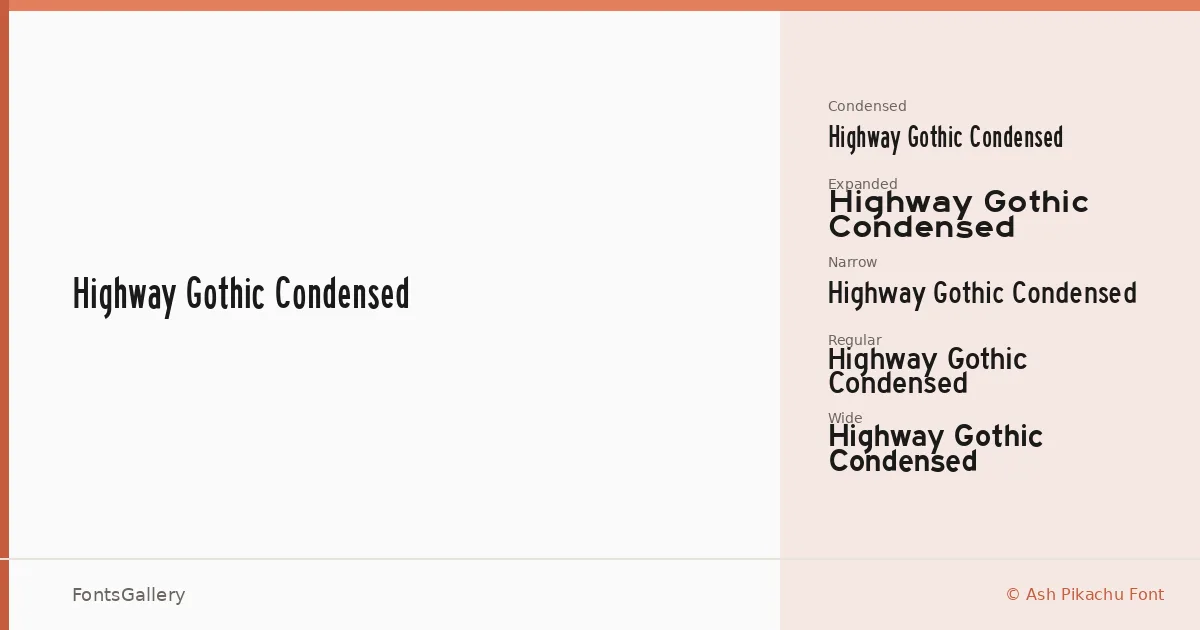
About Highway Gothic Condensed Font
There is something immediately recognizable about the letterforms here — the squared shoulders, the even strokes, the no-nonsense weight that reads at a glance from fifty feet away. This is the geometry of American road signage translated into a type family, designed by Ash Pikachu Font and carrying a copyright from 2009. The forms are drawn without ornamentation, leaning hard into function without sacrificing a certain vintage authority.
This is a sans serif family built around width variation rather than weight variation: the five styles — Regular Condensed, Regular Narrow, Regular Regular, Regular Expanded, and Regular Wide — give you a full range of horizontal proportions from tightly packed to broadly spaced. The mood throughout is bold and classic, with a professional edge that carries the faint patina of mid-century public infrastructure. All styles are delivered as TTF files, covering the Latin script. Whether set tight or spread out, the letterforms hold their composure — they were made to be read fast and remembered.
The width range makes this family well suited to headline work, poster layouts, signage systems, outdoor advertising, and T-shirt design — anywhere legibility at scale is the first priority. The condensed cuts pack serious presence into narrow columns; the wider cuts command open space on a billboard or banner. For pairing, the family works alongside Aresink, Ballmain, 321 Impact, Bizantheum, and Batoshi, all of which share a comparable directness without competing for attention.